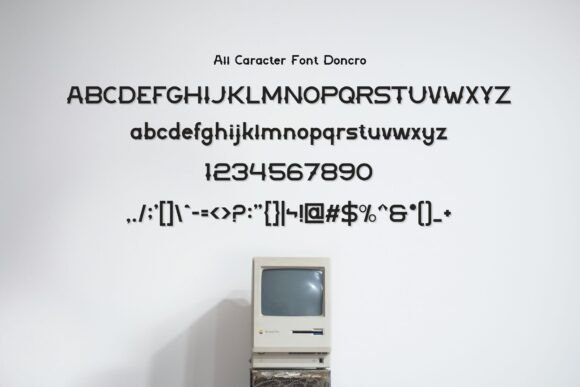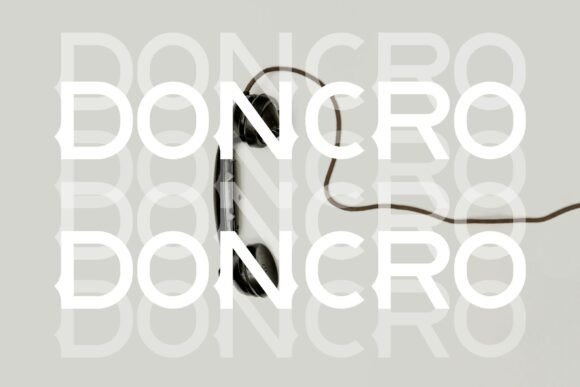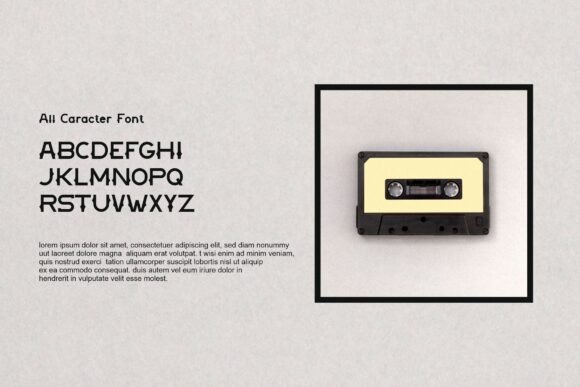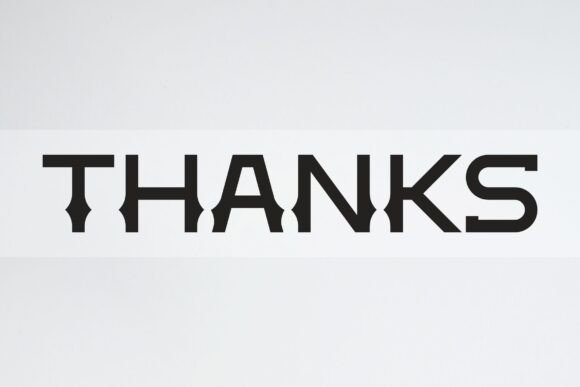
Discover the Power of Doncro Font
Have you ever stared at a blank page, feeling like your design just isn’t coming together? You’ve got a great idea, but the words on the page just aren’t doing it justice. That’s when you remember the magic of the right font – the one that can elevate your entire creation and make it truly unforgettable.
Enter the Doncro Font, a bold and assertive sans serif font that’s ready to take your designs to the next level. Whether you’re creating a logo, brochure, or website, this font has the potential to be an incredible asset to your library. With its unique blend of style and sophistication, Doncro Font is the perfect addition to any designer’s toolkit.
Doncro Font Key Features
- Font Family: Doncro is a sans-serif font, ideal for modern designs and applications.
- Size: The font family includes a range of weights from Thin to Black, with 12 styles in total.
- Unique Characteristics: Doncro features a clean and minimalist design, with a focus on legibility and readability.
Doncro Font Review
At first glance, the Doncro font seems like a promising addition to any designer’s toolkit. ✨ Its modern and sleek aesthetic makes it perfect for creating eye-catching digital experiences.
One of the standout features of the Doncro font is its versatility. ✨ It comes in a range of weights and styles, making it suitable for everything from body text to headings. Additionally, the font’s clean lines and lack of ornamentation make it easy to read and understand.
- Modern and sleek aesthetic
- Range of weights and styles
- Clean lines and lack of ornamentation
- May not be suitable for traditional or formal designs
- Lack of bold, experimental, or script styles
- Not ideal for complex or detailed typography
Overall, the Doncro font is a solid choice for designers looking for a modern and versatile font. While it may not be the best fit for every project, it’s definitely worth considering for digital designs that require a clean and sleek aesthetic.
7/10 – The Doncro font is a reliable and stylish choice for designers, but may not offer enough variety for those seeking a more extensive font library.
Tips for Getting the Most Out of Doncro Font
To get the most out of Doncro Font, use it for creative and artistic projects, such as logos, branding, and typography-based designs. Experiment with different font sizes, colors, and combinations to create visually appealing and unique designs.
Doncro Font is ideal for use in creative projects, such as:
– Logos and branding materials
– Typography-based designs
– Artistic and artistic posters
– Social media graphics and ads
– Print materials, such as business cards and brochures